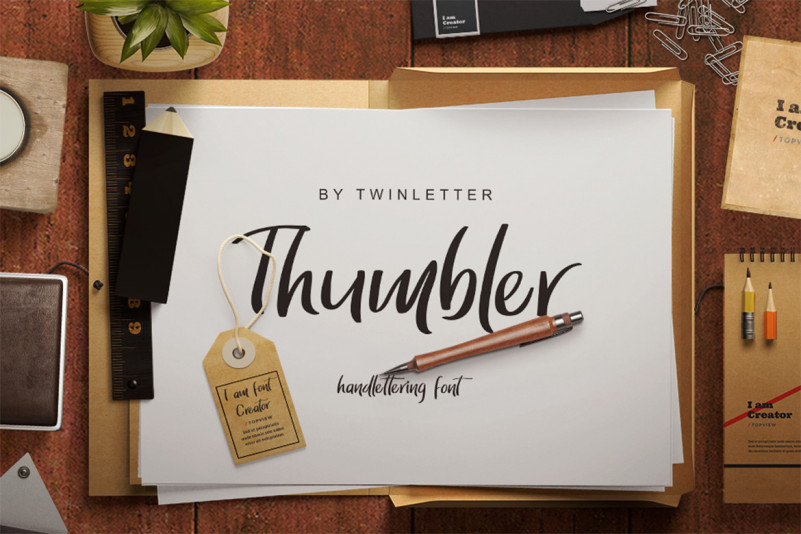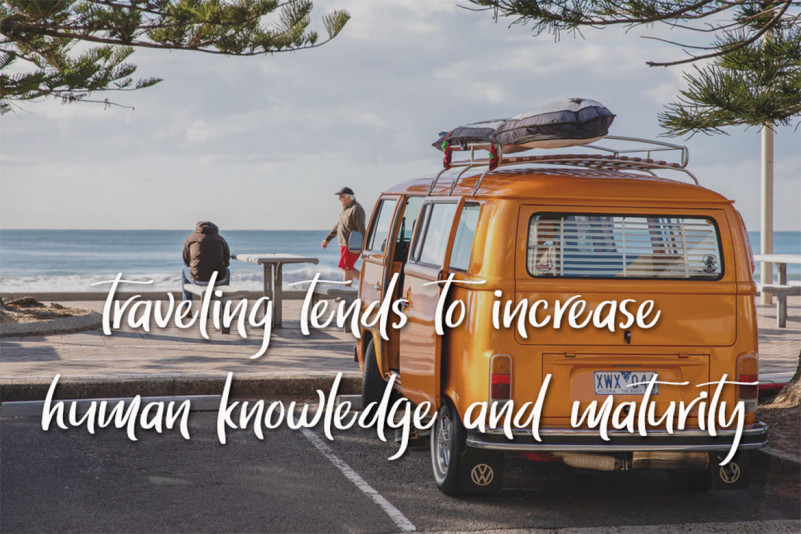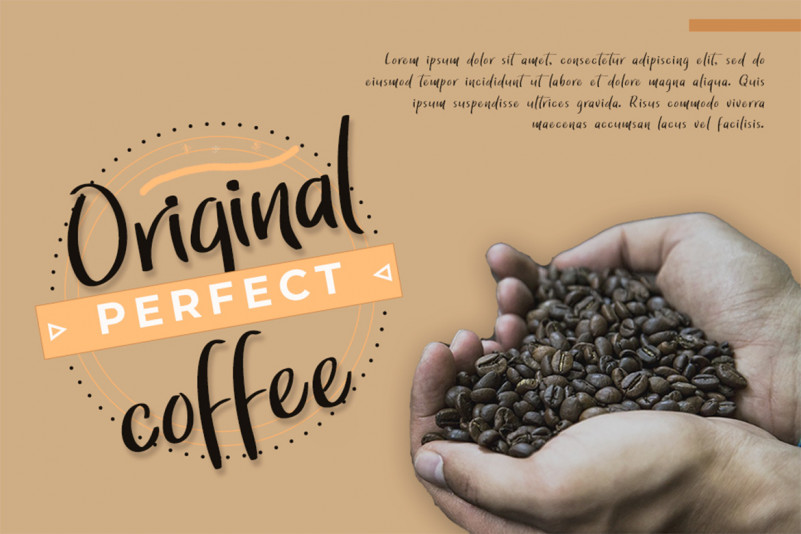
Thumbler Handwritten Font
Thumbler is a magical font with a touch of elegance, created carefully by the use of a brush pen.
This handwritten style allows you to create stunning design projects, be it logos, signatures, labels, packaging designs, blog headlines, heading titles, movie titles or more!
Introduce my font, this font is a script font that is connected with clear style and dramatic movements.
This font comes with uppercase letters, lowercase letters, numbers, punctuation marks, and so many variations on each character including alternating opentypes, common binders and additions to make you customize your design. Perfect to use for Logotype, Letterhead, Posters, Clothing Designs, Labels and all designs that require handwriting